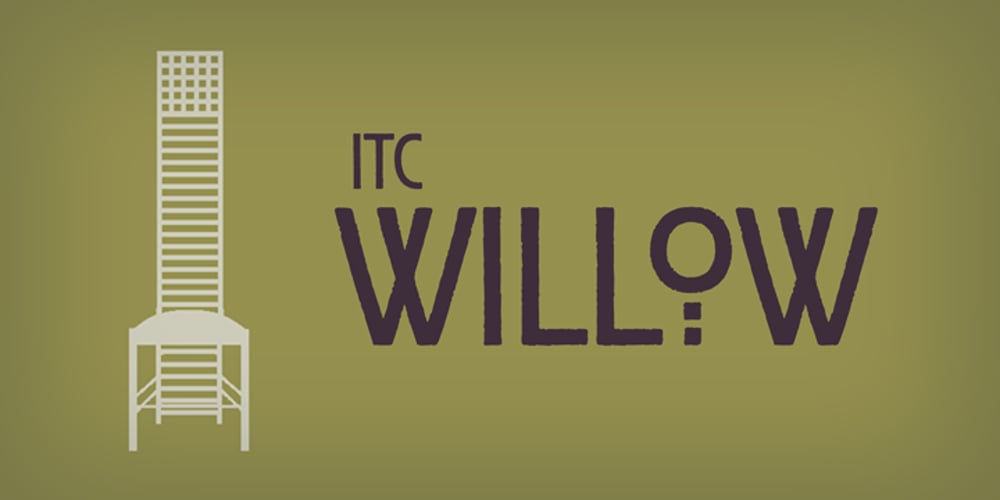
ITC Willow
ITC Willow font
ITC Willow Font Family was designed by Tony Forster, Charles Rennie Mackintosh and published by ITC. ITC Willow contains 1 styles and family package options. Willow font was designed by Tony Forster, a fanciful font in the Viennese Secessionist style. The work of Scottish architect Charles Rennie Mackintosh inspired this condensed sans serif typeface with its rough edges and selection of alternate and ligature characters. Willow font revives the look of the arts and crafts of the late 19th and early 20th centuries.